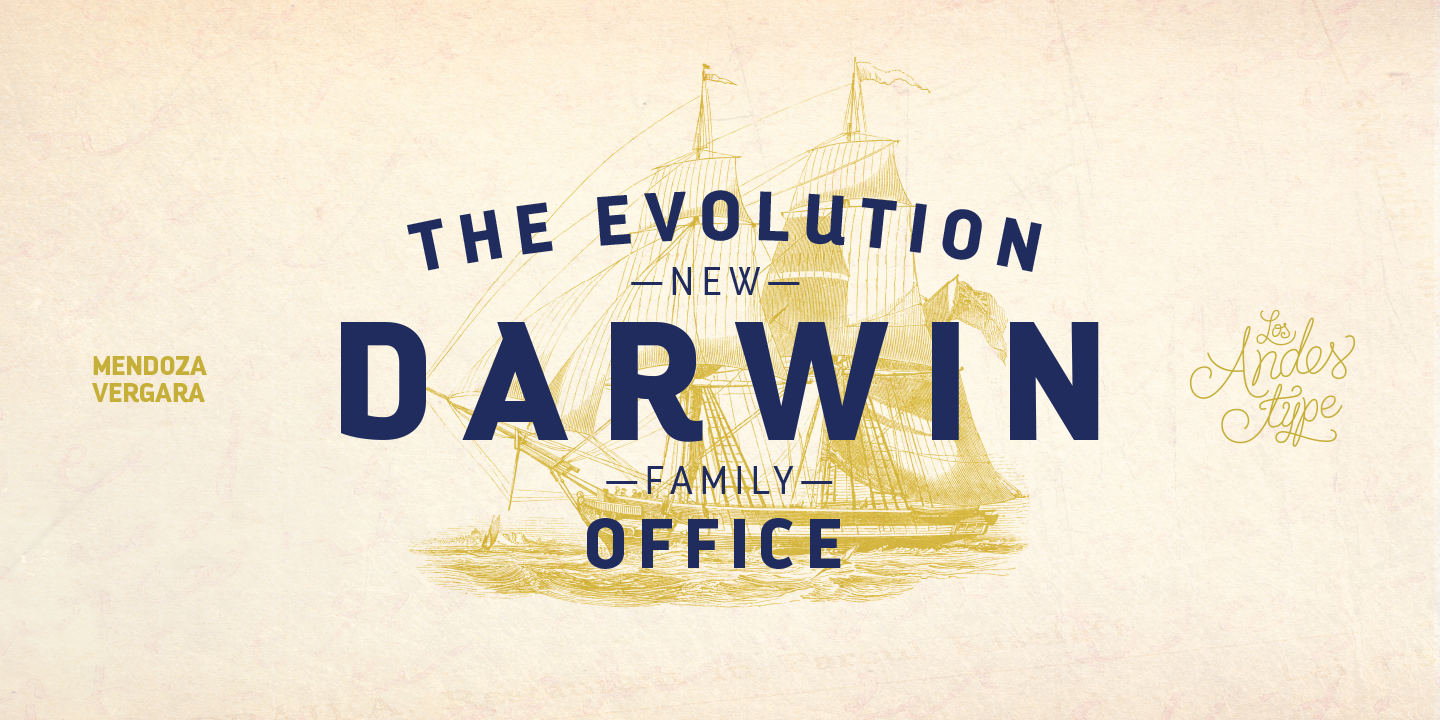
This professional typeface is an excellent choice for projects demanding clarity, efficiency, and a contemporary yet classic appeal, making it ideal for the modern corporate environment. Imagine it forming the backbone of your business presentations, providing crisp readability for official documents, or adding a polished touch to corporate reports. Darwin Office Font is also perfectly suited for designing streamlined internal communications, crafting precise professional resumes, or creating impactful branding for financial services and consulting firms. Its balanced proportions and straightforward design make it an ideal option for any professional setting seeking to convey reliability, authority, and a modern sense of order, such as legal documents, educational materials, or well-structured data visualizations.
What makes Darwin Office Font so exciting? It excels in its ability to offer exceptional legibility across various applications, from dense spreadsheets to prominent headings. The letterforms are often characterized by clean lines, optimal spacing, and a pragmatic design that ensures information is absorbed quickly and without distraction. This font doesn’t just convey text; it organizes it with an inherent sense of professionalism and understated sophistication. It's engineered to perform flawlessly in both print and digital mediums, making it a true workhorse for office productivity and corporate branding. The inherent neutrality and adaptable nature of its character shapes make it particularly effective for brands that champion efficiency, clarity, and a universally appealing, professional identity.
The Darwin Office Font family typically offers a comprehensive range of weights and styles, providing extensive flexibility for designers to build sophisticated and consistent typographic systems within a professional context. You can expect to find a broad spectrum of options, including Light, Regular, Medium, Bold, and often an Extra Bold weight, along with corresponding italic versions. Each weight is meticulously designed to maintain the font's core characteristics while offering distinct visual impacts, allowing for a precise and nuanced typographic hierarchy. These variations enable users to create well-structured and highly functional documents, effectively differentiating between headlines, subheadings, and body text with elegance and precision. The extensive family ensures that Darwin Office Font can be the singular typeface for an entire corporate identity, guaranteeing visual consistency and a polished, professional appearance across all mediums.
Whether you're developing essential corporate communications, building a new professional brand, or simply need a typeface that speaks with authority and modern clarity, Darwin Office Font Free Download is an exceptional choice. Its practical design and broad versatility will ensure your message is always delivered with utmost professionalism and sophisticated purpose.